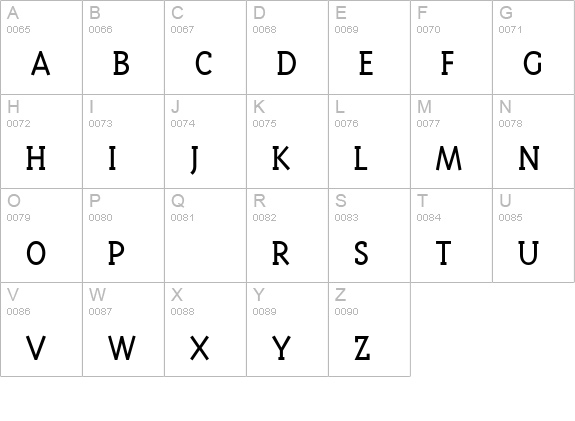
TriplexSerif-Light Font Details
TriplexSerif-Light is a stunning font that exudes elegance and sophistication. It is the perfect choice for projects that require a touch of understated refinement. With its clean lines and delicate curves, this font captures attention without overpowering the overall design. What sets TriplexSerif-Light apart is not just its aesthetic appeal, but also its versatility. Whether used for a logo, website, or printed materials, this font adapts effortlessly to any medium, ensuring a consistent and professional look across all platforms. One of the best features of TriplexSerif-Light is that it is available for free download at FontsMarket.com. This means that designers and creatives can easily access this extraordinary font without any cost. With just a few clicks, you can enhance your projects with the timeless beauty of TriplexSerif-Light. The combination of its light weight and serif style gives TriplexSerif-Light a sense of grace and delicacy. It effortlessly adds a touch of sophistication to any text, making it perfect for invitations, wedding stationery, and high-end branding. Furthermore, this font's legibility is unmatched, making it ideal for body text in magazines, books, and online articles. Its clear and distinct letterforms ensure that readers can effortlessly absorb the content without any distractions. TriplexSerif-Light is a typeface that is sure to impress. Its timeless design, versatility, and legibility make it a must-have for any designer or creative professional. And the fact that it is freely available for download at FontsMarket.com only adds to its incredible value. So why wait? Elevate your designs with the elegance and sophistication of TriplexSerif-Light today. Download it for free at FontsMarket.com and let your creativity soar.